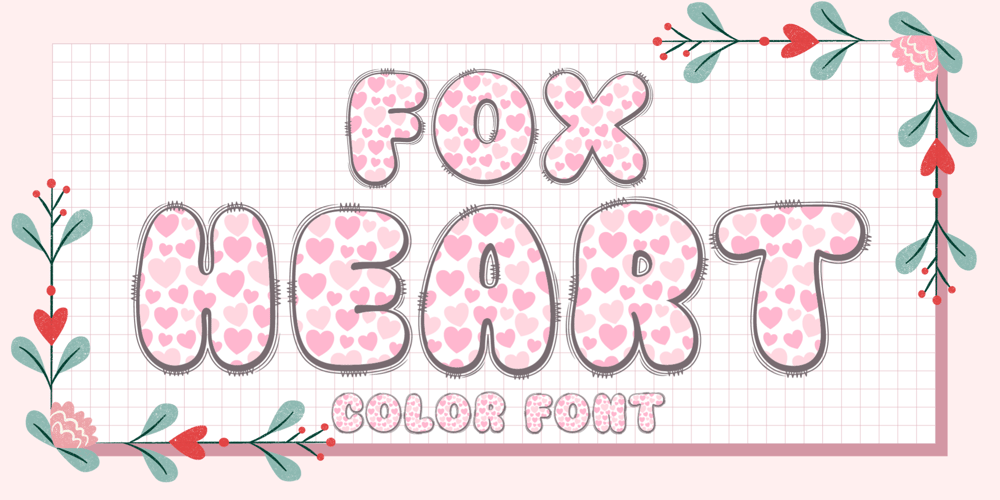
Fox Heart Font Family was designed by Rattana Rattanawan and published by Fox7. Fox Heart contains 1 styles and family package options. Fox Heart is a cute and fun color font. This font is your go-to for crafting cute greeting cards that express affection and warmth. Whether you’re a designer, a social media influencer, or someone with a penchant for creative expression. Fall in love with its authentic feel and use it to create gorgeous invitations, beautiful stationary art, eye-catching social media posts, and cute greeting cards.🌺🌺 Please note that the Canva do not support color fonts! 🌺🌺